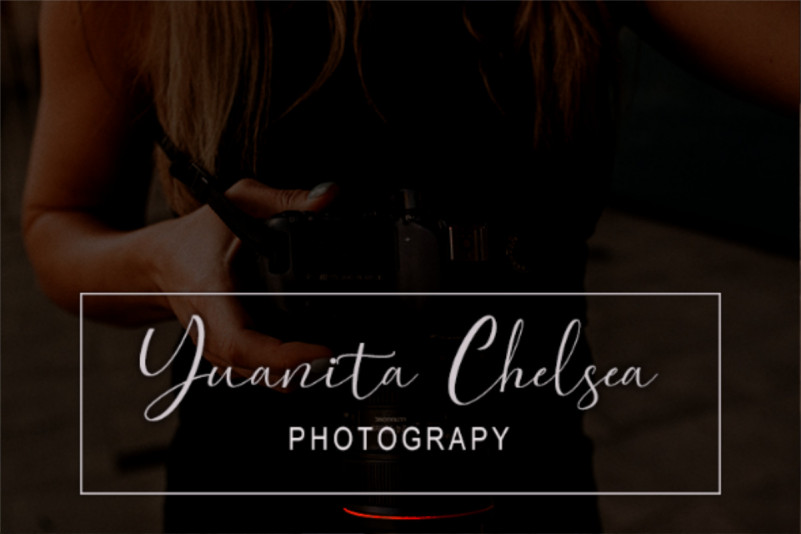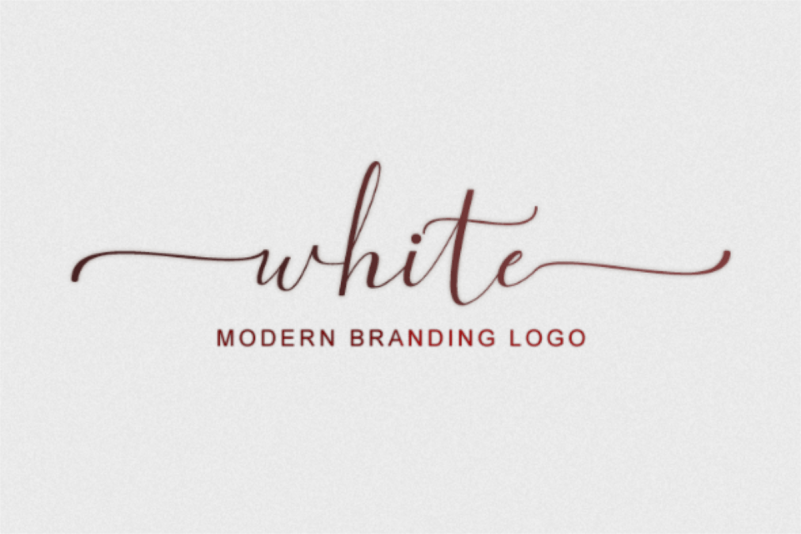
Gutten Fighter Font Duo
INTRODUCING elegant font duo serif and signature script We give priority to professional impressions for several formal projects such as Branding logos, packaging products, business cards, and many more serif is equipped with full uppercase and lowercase puncation characters and multilangual support and features alternates and ligature